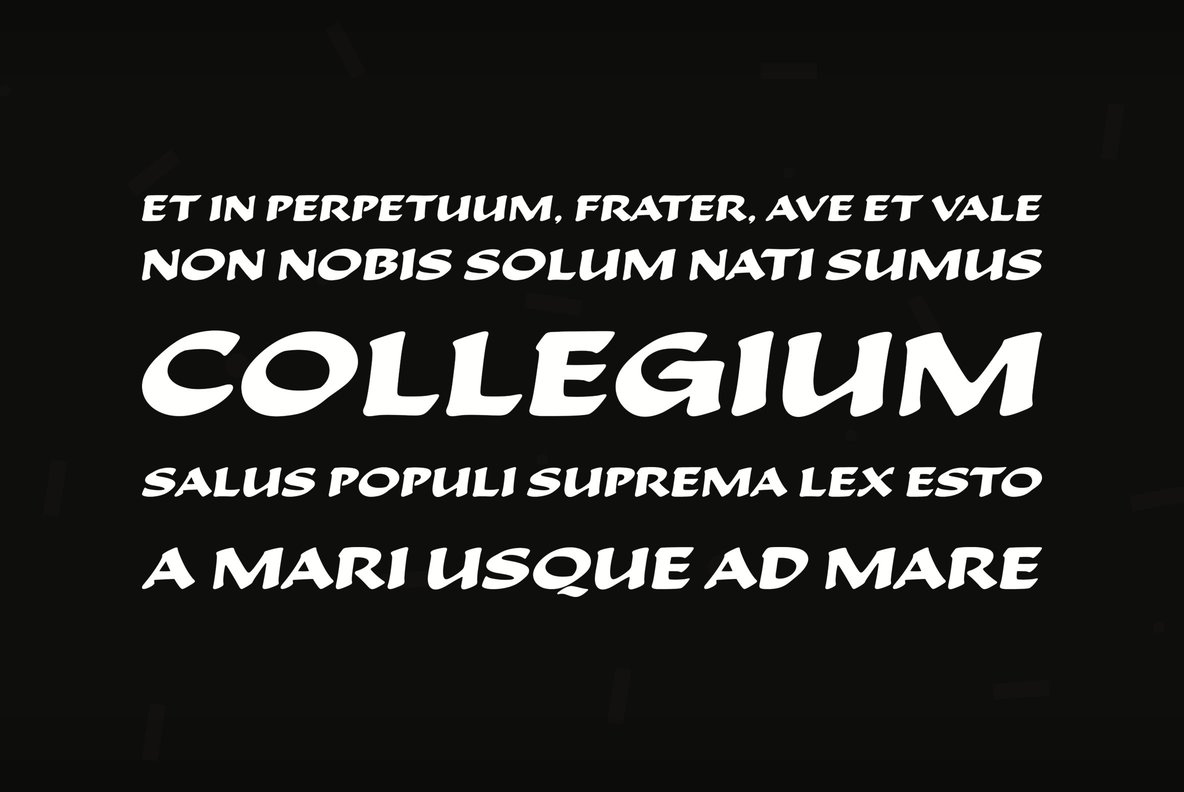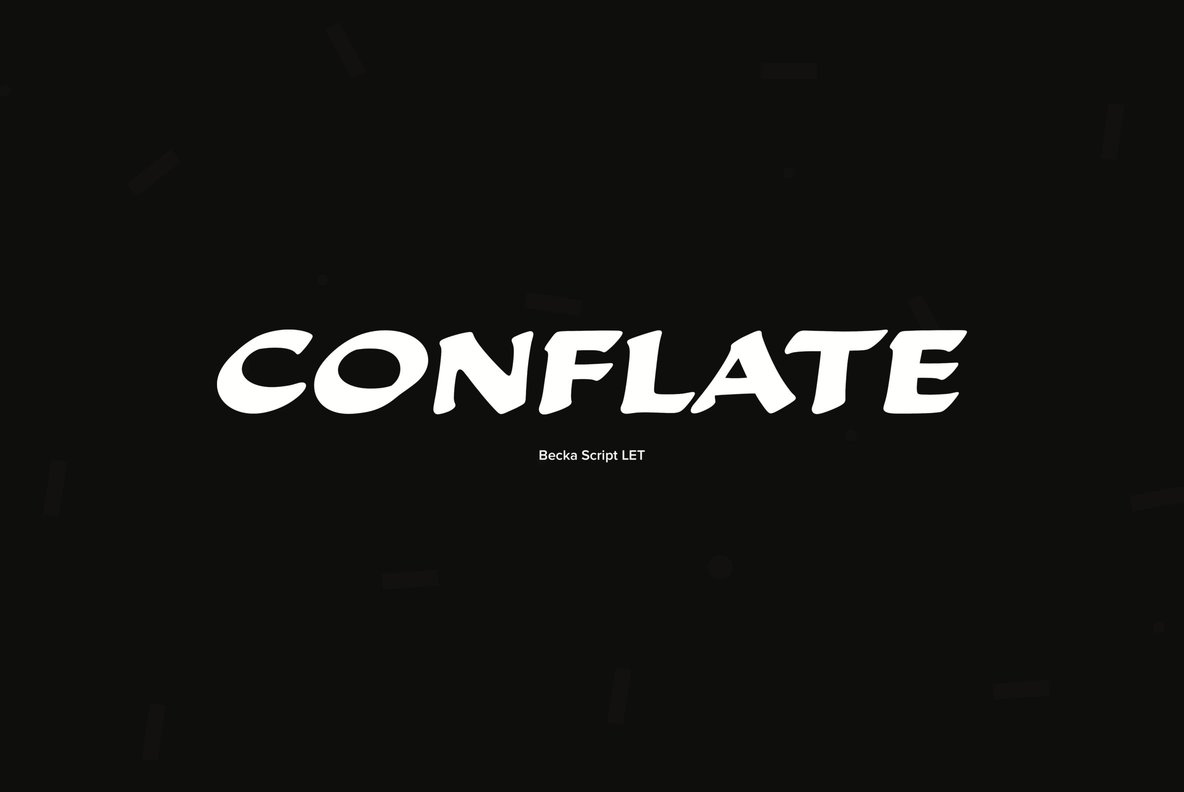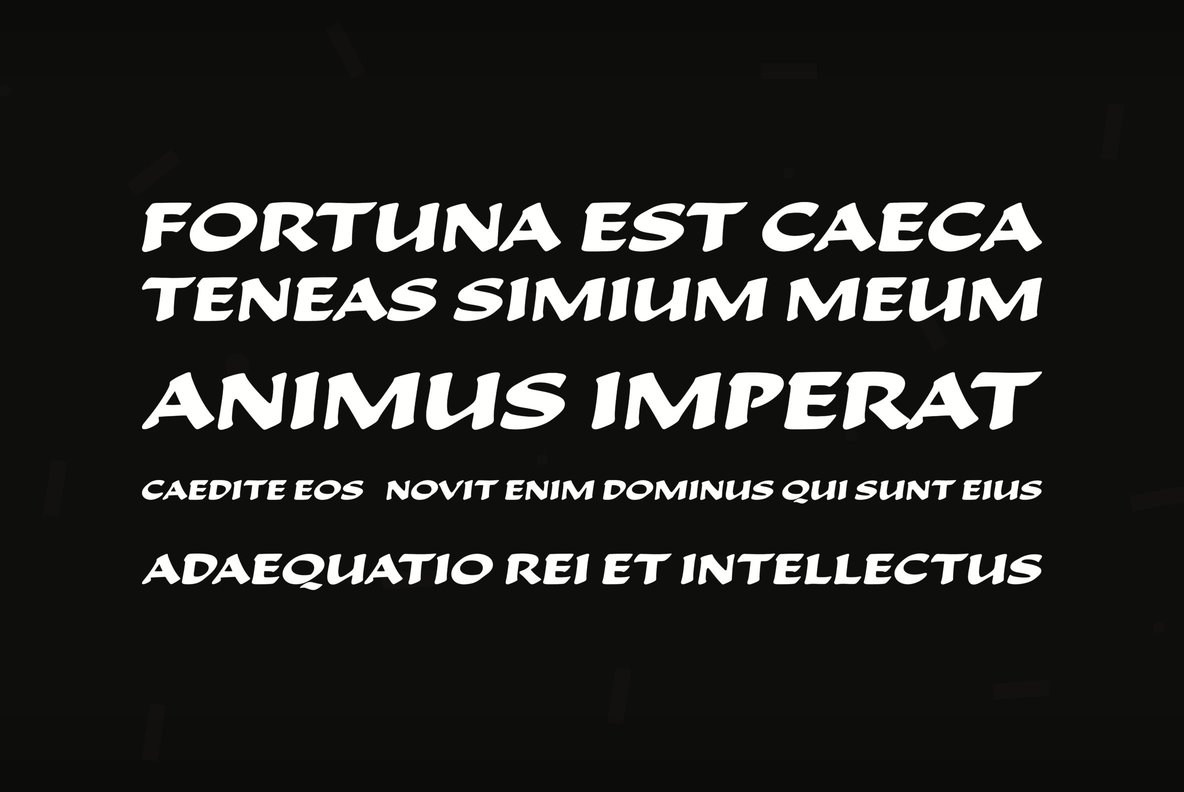
Becka Script Font
A wide casual typeface based on a refined brush stroke style makes this font suitable for a wide variety of large display work. For maximum visual impact, Becka Script should be closely letter and word spaced. Created by talented British lettering designer David Harris.